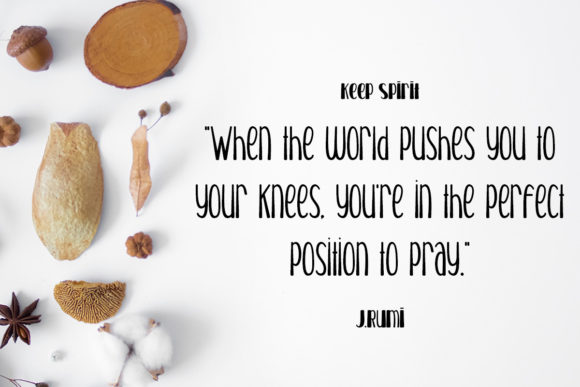
House Chick Font
db-ku.com - Script & Handwritten -- House Chick is a unique handwritten font that can make the work you do more iconic. There are various advantages to it – you can use it for book titles, identity cards, birthday cards, food product names, and more. Feel free to experience it for yourself!